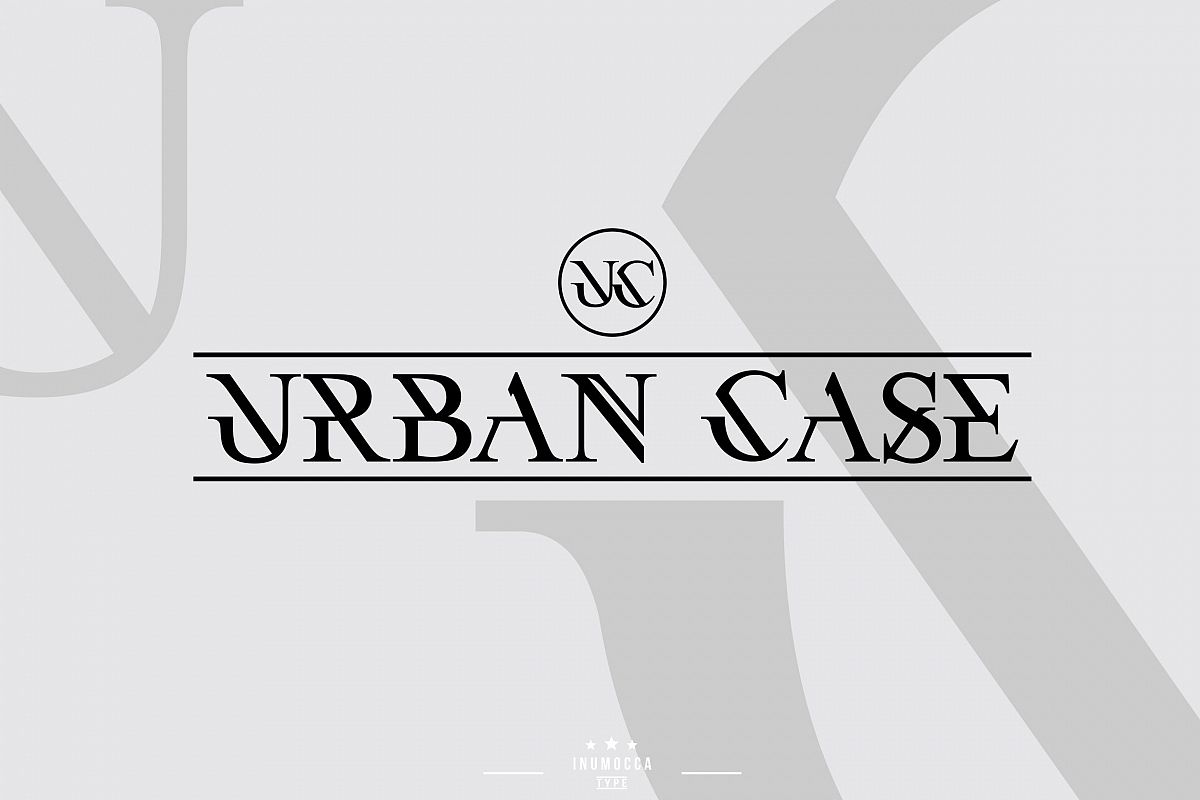
UrbanCase
URBAN CASE inspiration from the Urban People, Simple, Elegant, Classy, have a great different Style. great for your Logos, signature, promotion media, etc. unique glyph and deep touchinclude with